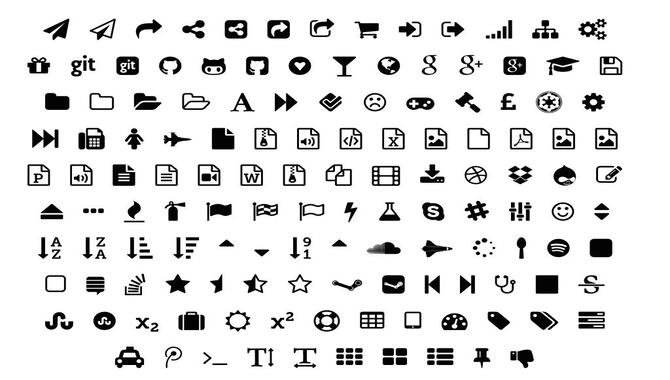
Font Awesome 4.7 CDN is a popular icon set that allows web developers. To easily add scalable vector icons to their websites or applications.
With over 675 icons, Font Awesome 4.7 CDN offers designers a wide range of options. And developers to create visually appealing and functional interfaces. Here we will explore the benefits of using Font Awesome 4.7 CDN, including its responsive and scalable images.
What Is Font Awesome?
Font Awesome is a popular and widely used icon set comprising scalable vector icons. It was designed to simplify adding icons to websites and applications. Making it easy for developers and designers to create visually appealing interfaces.
Font Awesome 4.7 CDN offers over 675 icons, including social media icons, arrows, and navigation icons. And much more, allowing you to enhance your website or application’s functionality and visual appeal.
Benefits Of Using Font Awesome 4.7 CDN
One of the main benefits of using Font Awesome 4.7 CDN is its responsive and scalable images. This means the icons will look great on any device or screen size without losing quality or resolution. Additionally, Font Awesome 4.7 CDN is easy to integrate with HTML and CSS, making it a popular choice for web developers.
Another advantage of using Font Awesome 4.7 CDN is its high-quality icons. These icons are designed to be visually appealing and easily recognizable. Making it easier for users to navigate your website or application. Plus, with over 675 icons, you’ll have many options to suit your design needs.
High-Quality Icons For Your Site
Font Awesome 4.7 CDN is a popular icon toolkit that provides high-quality icons for your website. With over 675 scalable vector icons, it offers designers and developers a wide range of options. The icons are easily customizable and can be modified using CSS, making it easy to match the look and feel of your website.
In addition, Font Awesome 4.7 CDN is free to use and can be easily integrated with popular content management systems like WordPress and Drupal. So whether you want to add visual interest to your site or simply need a few icons to enhance your user experience. Font Awesome 4.7 CDN is worth checking out.
Responsive And Scalable Images
Scalable and Responsive Images are vital to web design. Font Awesome provides scalable images seamlessly integrated into your website’s design using CSS or HTML markup language. Use Font Awesome icons in your web application, email, blog, and GitHub.
Font Awesome 4.7 CDN is a popular icon font library that easily integrates HTML and CSS. By using Font Awesome, you can enhance your website’s or application’s visual appeal by adding icons to your design. The library includes over 675 icons, which can be customized using CSS to match the style of your brand or website.
One of the biggest advantages of using Font Awesome is its ease of integration into your existing codebase. Simply add the CDN link to your HTML file and use the icons in your CSS classes. With Font Awesome, you can add a professional touch to your web design without spending countless hours creating custom graphics from scratch.
How To Add Font Awesome 4.7 Cdn To Your Website?
Adding Font Awesome 4.7 CDN to your website can be done in three easy steps. Firstly, copy the provided code snippet from the Font Awesome website and paste it into the <head> of your HTML file.
Secondly, add the class name of the icon you want to use inside an HTML tag where you want it to appear on your site. Lastly, customize the size and colour of your icon using CSS to best match your site’s design. With these simple steps, you can enjoy fast-loading and responsive icons for your website using Font Awesome 4.7 CDN.
Find The Cdn Link.
To integrate beautiful design elements into your web application without any fuss. You can use a cloud-based platform like Font Awesome 4.7 CDN.
By copying the HTTPS link from their website and pasting it into your HTML code’s <head> section, you can access an extensive library of high-quality icons and graphics without adding any extra burden on your browser or server. By using appropriate class names in your CSS or JS files, you can easily style these awesome icons according to your requirements.